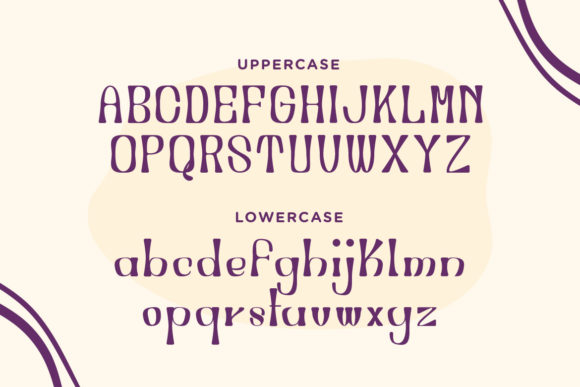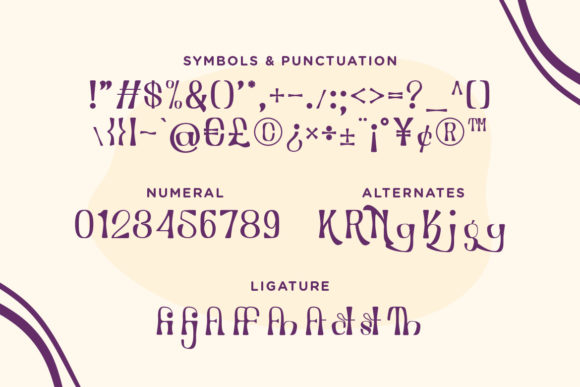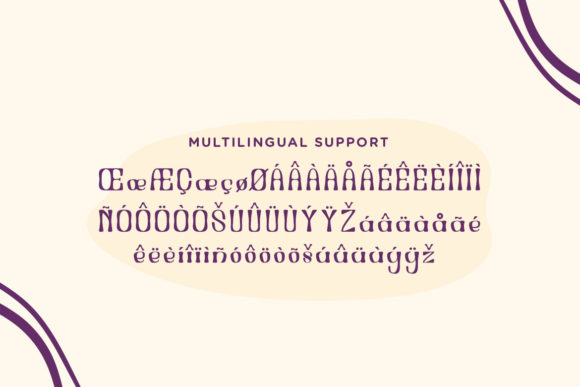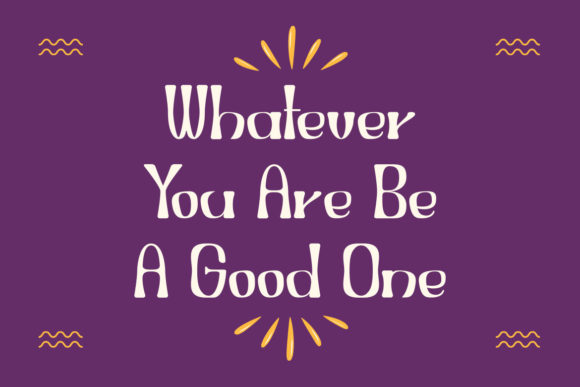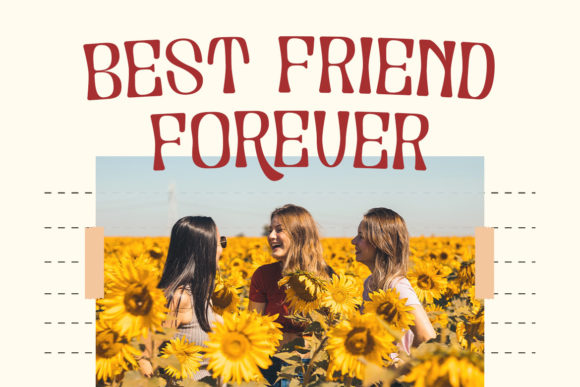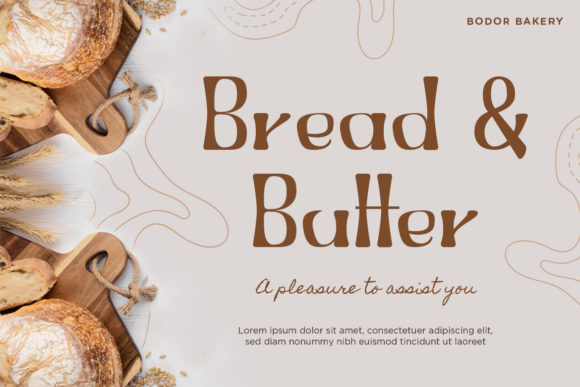
Bodor Font: Elevate Your Designs with a Cool and Trendy Display Font
In the world of typography, fonts play a crucial role in conveying the tone and personality of a design. Among the numerous fonts available, Bodor stands out as a cool and trendy looking display font that can instantly elevate your creations. Whether you’re a designer, craftsperson, or simply a font enthusiast, Bodor is a wonderful asset to have in your font library.
What Makes Bodor Font Special?
Bodor’s unique charm lies in its ability to add a touch of sophistication and style to any design. Its sleek lines, elegant curves, and carefully crafted letterforms make it an excellent choice for a wide range of projects, from logos and branding materials to posters, flyers, and digital media.
One of the key features that sets Bodor apart is its versatility. This font can be used to convey a sense of luxury, creativity, or playfulness, depending on the context in which it’s used. Whether you’re designing for a high-end fashion brand, a tech startup, or a creative agency, Bodor is sure to make a lasting impression.
Key Characteristics of Bodor Font
- Unique Letterforms: Bodor’s letterforms are carefully crafted to create a distinctive and memorable look.
- Elegant Curves: The font features smooth, flowing curves that add a touch of sophistication to any design.
- Sleek Lines: Bodor’s lines are clean and precise, making it perfect for use in digital media.
- Versatile: This font can be used for a wide range of projects, from logos and branding materials to posters and flyers.
Why Designers and Crafters Love Bodor Font
So, why do designers and crafters love Bodor font? For starters, it’s an excellent choice for creating visually striking designs that grab attention. The font’s unique letterforms and elegant curves make it perfect for use in:
- Logos and Branding: Bodor is an excellent choice for creating memorable logos and branding materials that stand out.
- Posters and Flyers: The font’s bold, eye-catching design makes it perfect for use in posters and flyers.
- Digital Media: Bodor’s clean lines and precise curves make it an excellent choice for use in digital media, such as social media graphics and website headers.
Tips for Using Bodor Font Effectively
To get the most out of Bodor font, here are a few tips to keep in mind:
- Use it as a Display Font: Bodor is designed to be used as a display font, so use it to grab attention and make a statement.
- Experiment with Colors: The font’s elegant curves and sleek lines look great in a variety of colors, so don’t be afraid to experiment.
- Pair it with Other Fonts: Bodor pairs well with a range of other fonts, so try combining it with different fonts to create a unique look.
In conclusion, Bodor font is a cool and trendy looking display font that can elevate any design. Its unique letterforms, elegant curves, and sleek lines make it an excellent choice for a wide range of projects. Whether you’re a designer, craftsperson, or simply a font enthusiast, Bodor is a wonderful asset to have in your font library. So why not give it a try and see how it can enhance your creations?